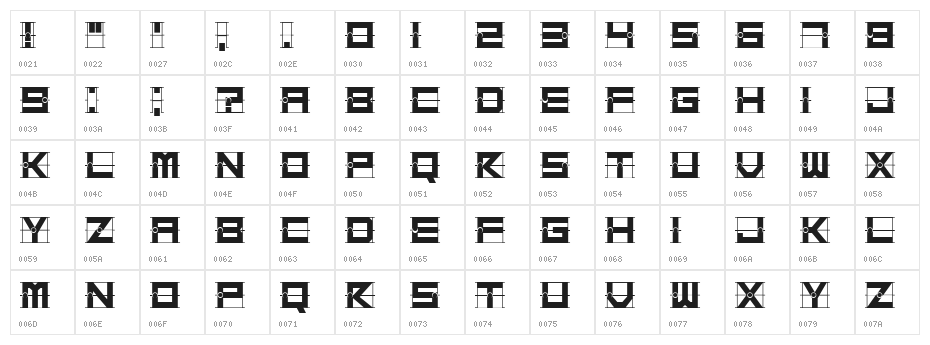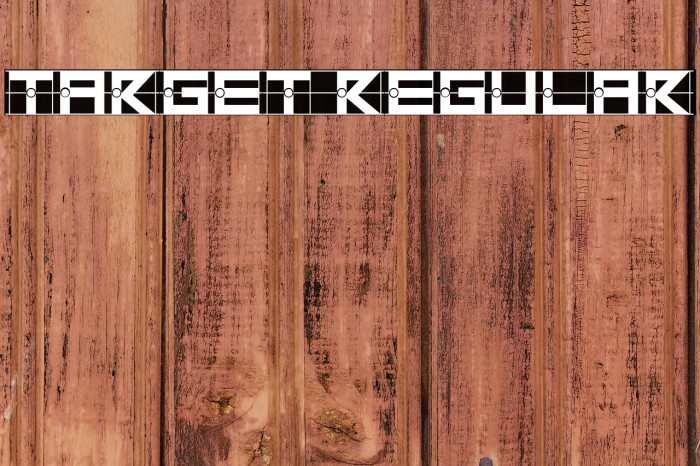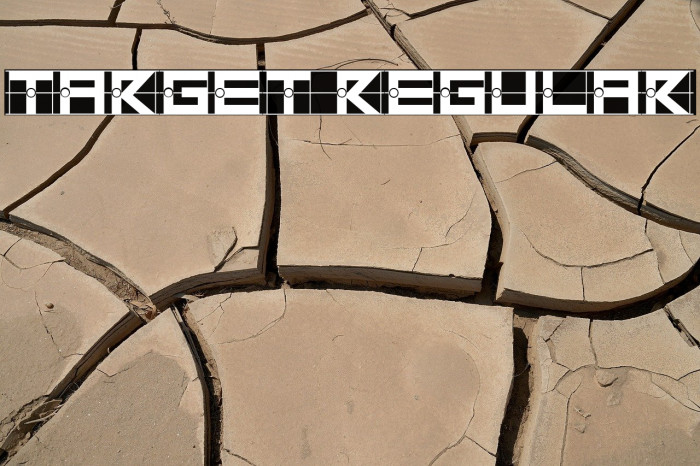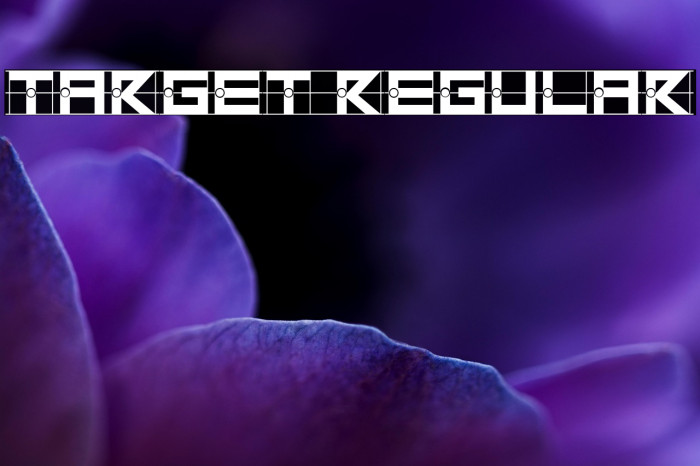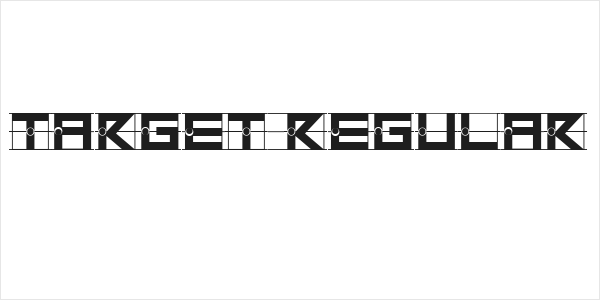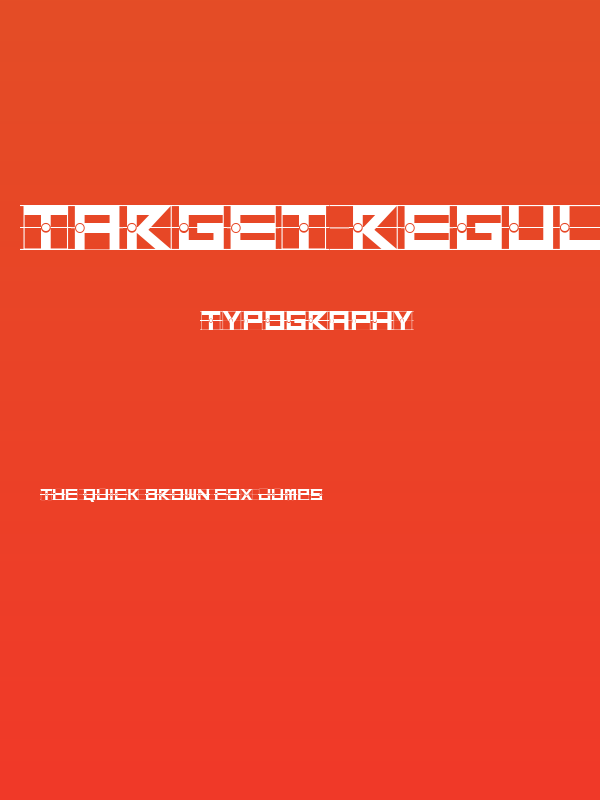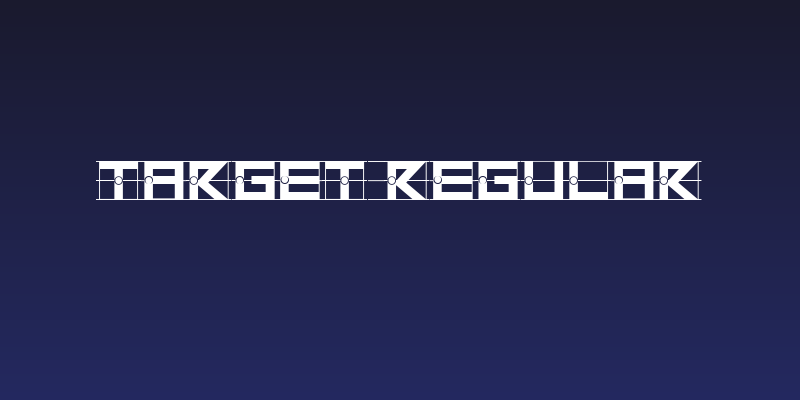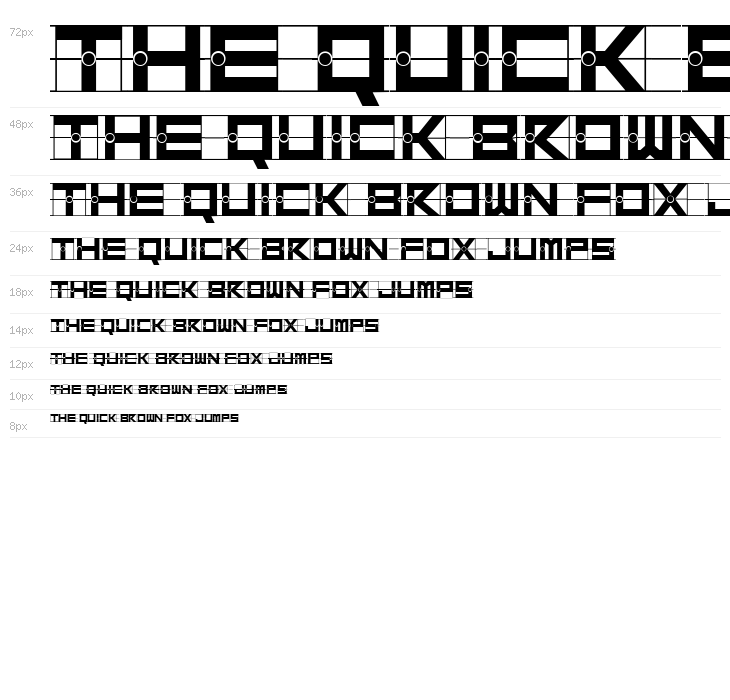
Target Regular Font
Target Regular Description
This font features a unique, geometric design with a distinct grid-like structure. Each character is constructed with bold, straight lines and circular elements that create a futuristic and mechanical appearance. The uppercase and lowercase letters maintain a consistent style, emphasizing symmetry and alignment. Numbers and special characters follow the same design principles, ensuring uniformity across all glyphs. The font's boldness and structured form make it ideal for projects that require a modern and technological aesthetic.
| Proposed Projects | Ideal for technology branding, futuristic posters, digital interfaces, and sci-fi themed designs. |